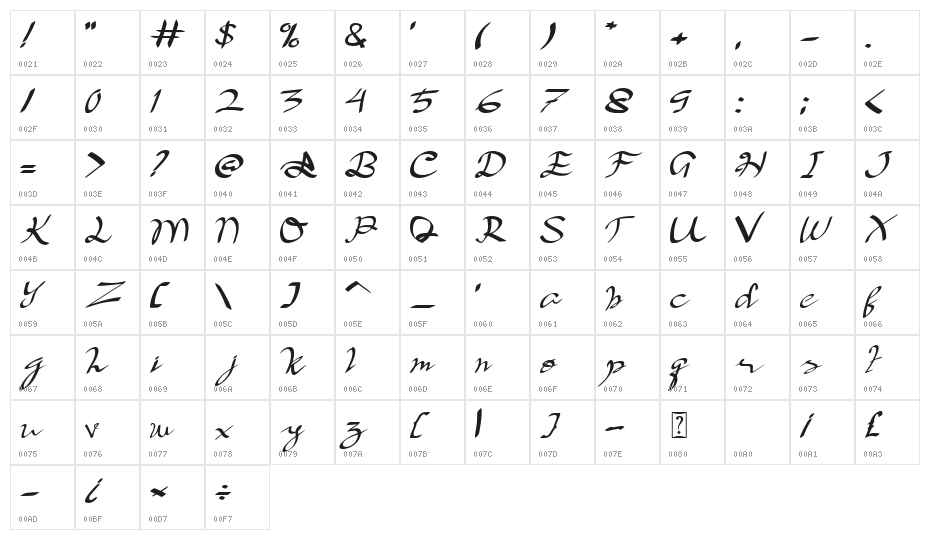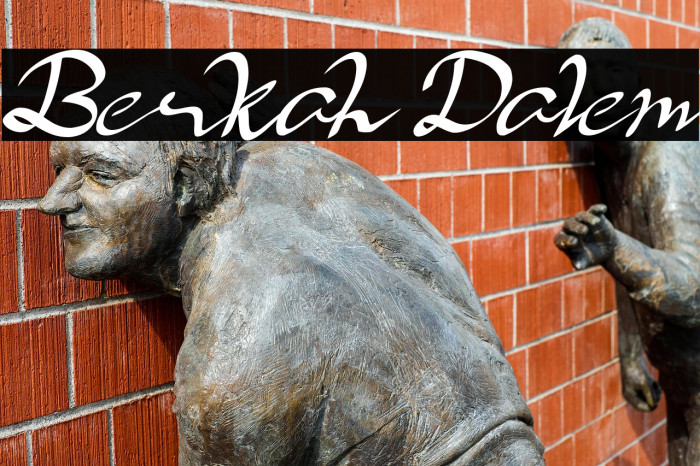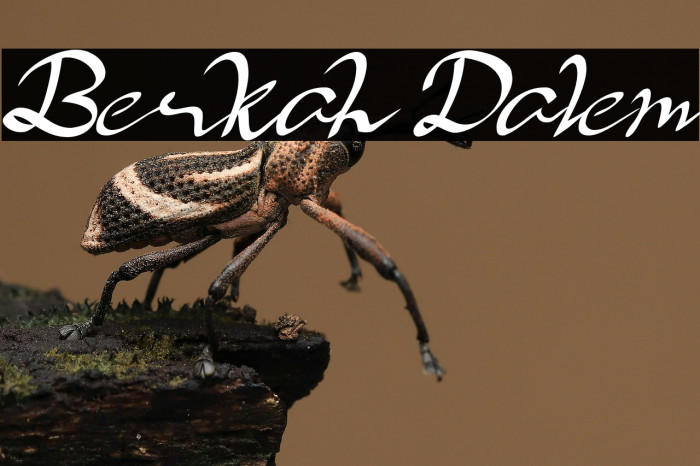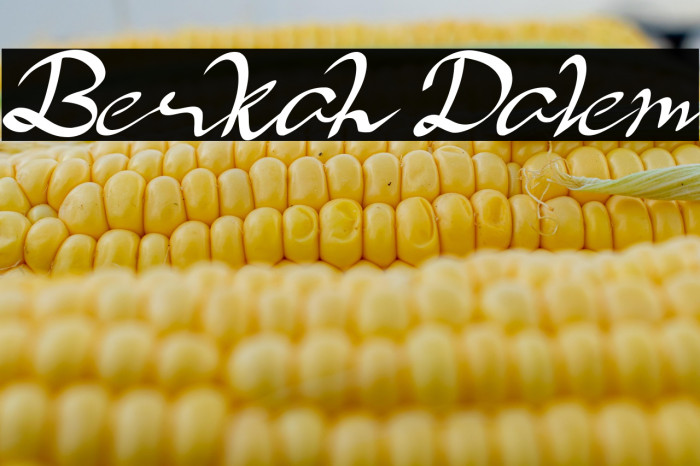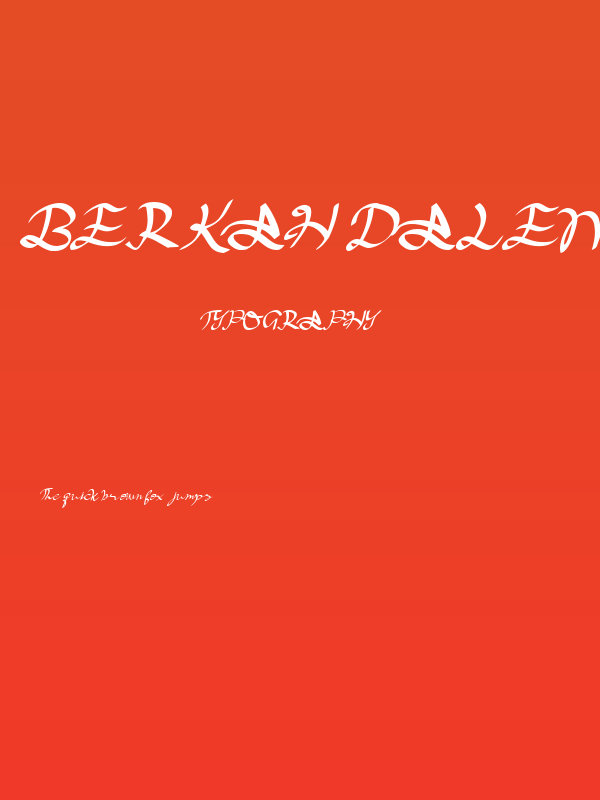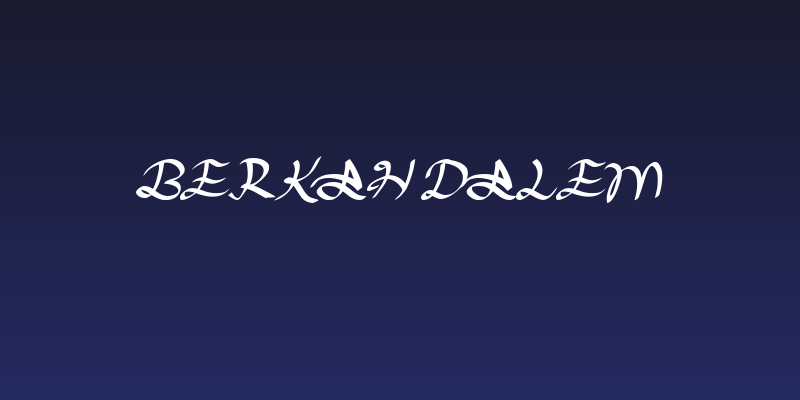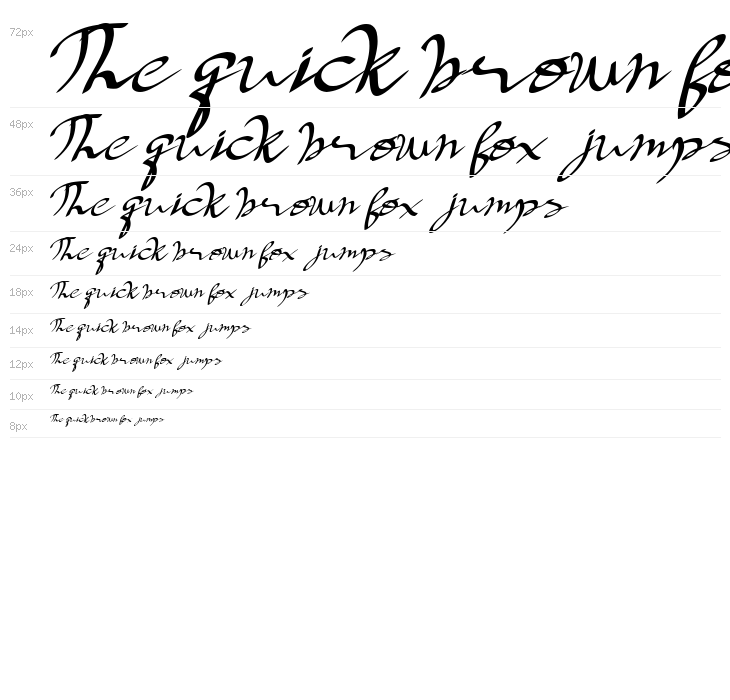
Berkah Dalem Font
Berkah Dalem Description
This font features an elegant and flowing script style, characterized by its cursive, handwritten appearance. The letters are interconnected, creating a seamless and fluid look. The strokes are varied, with some letters exhibiting thick and bold lines, while others have more delicate, thin strokes. This contrast adds a dynamic and expressive quality to the text. The uppercase letters are ornate, with intricate loops and swirls, while the lowercase letters maintain a more straightforward, yet still stylish, form. The numerals and special characters are designed to match the overall aesthetic, ensuring consistency throughout. This font is ideal for projects that require a touch of sophistication and artistic flair.